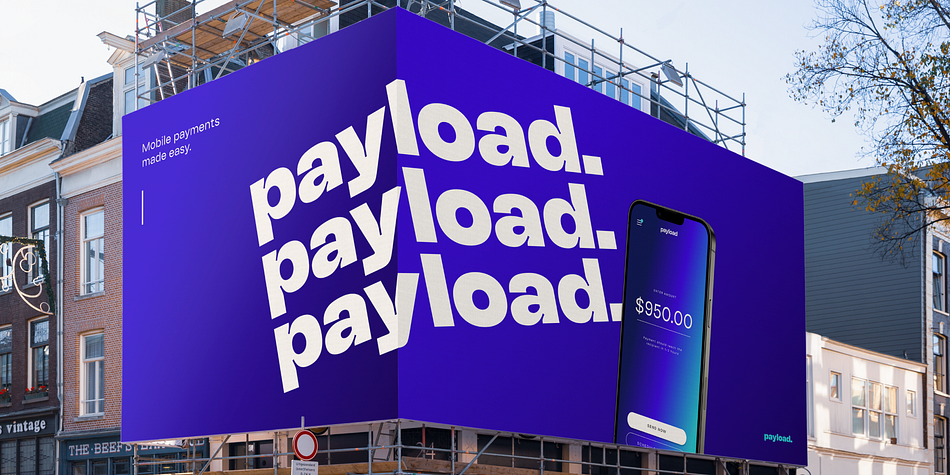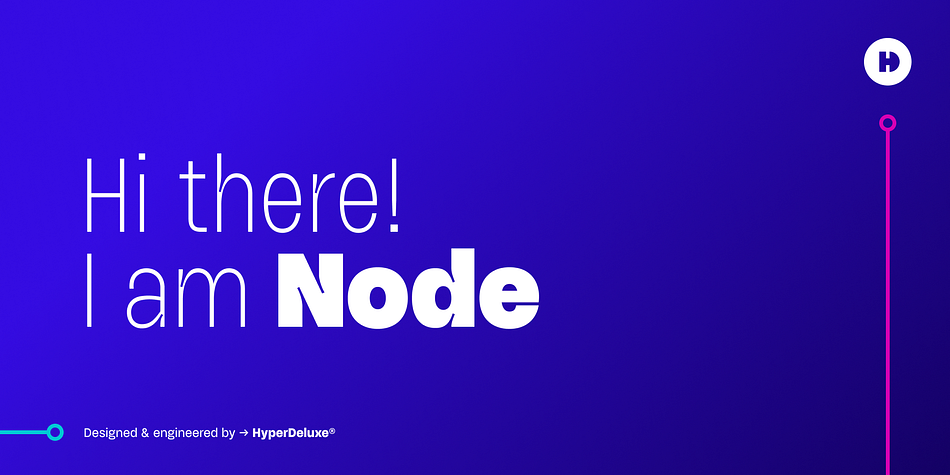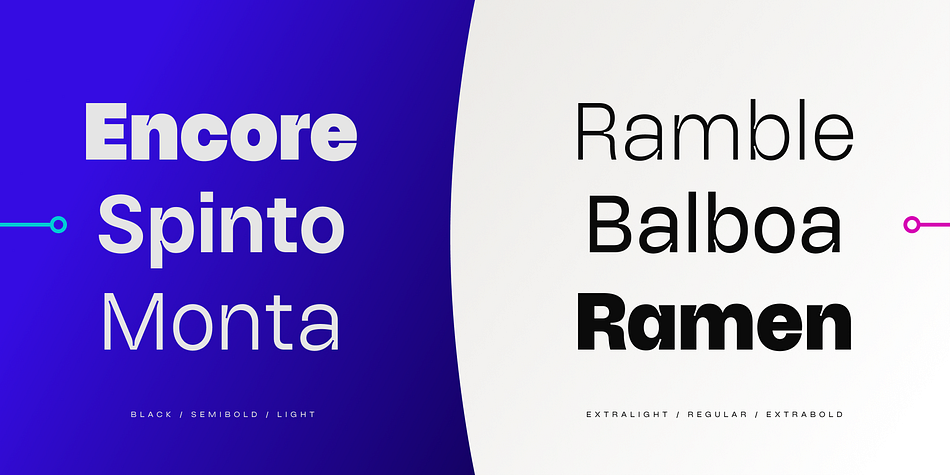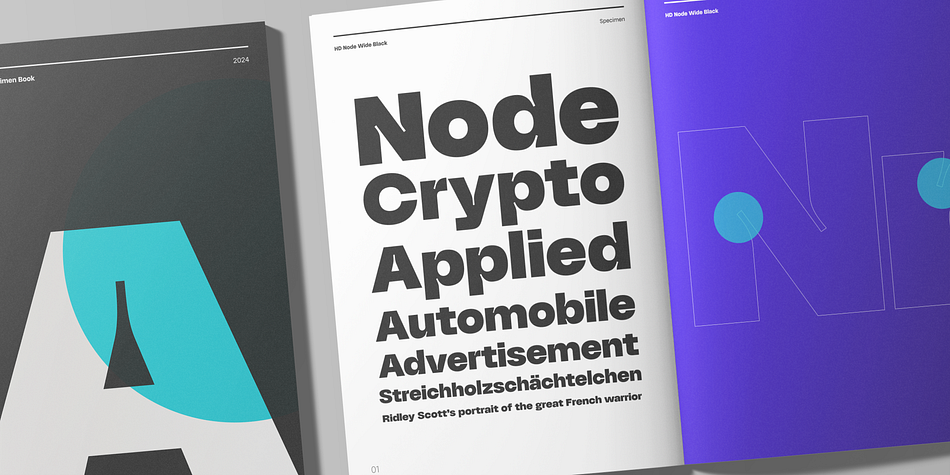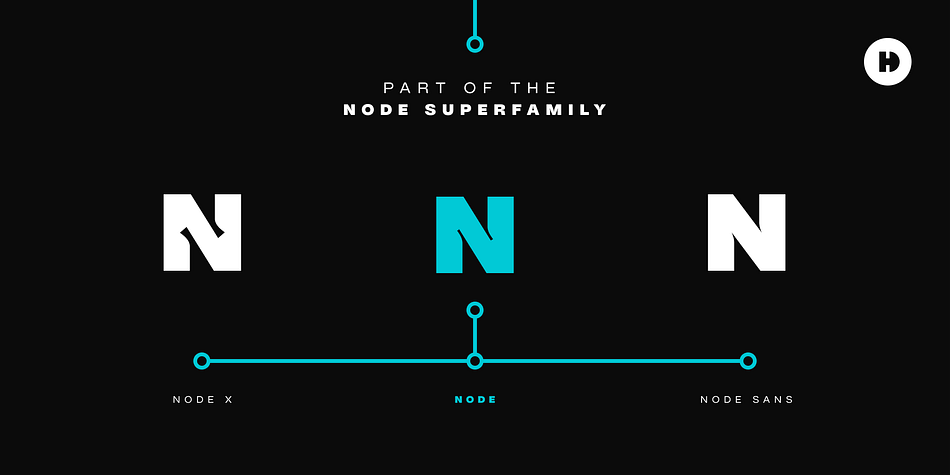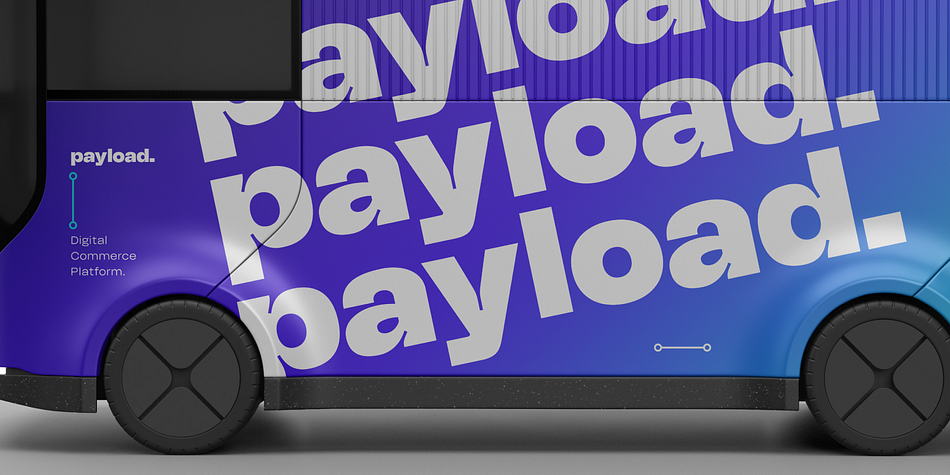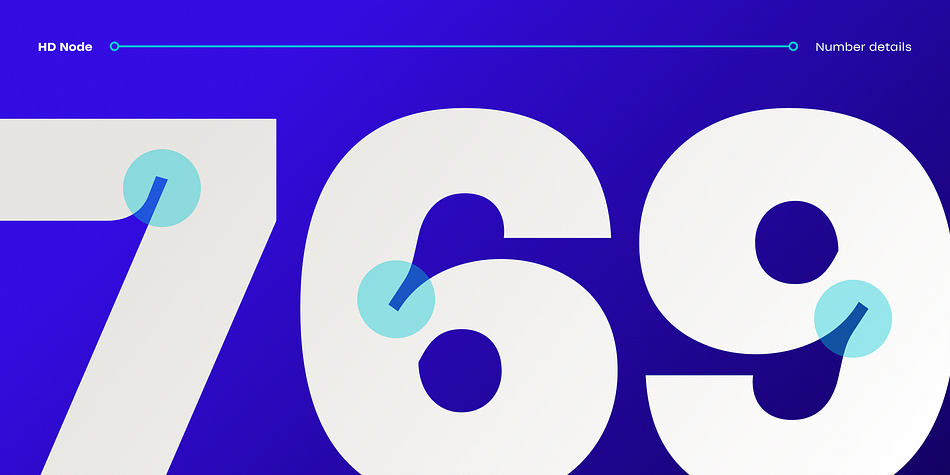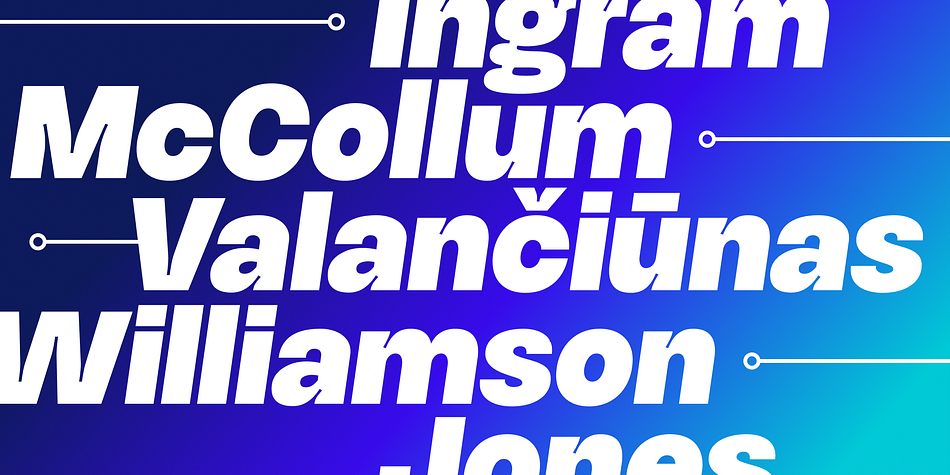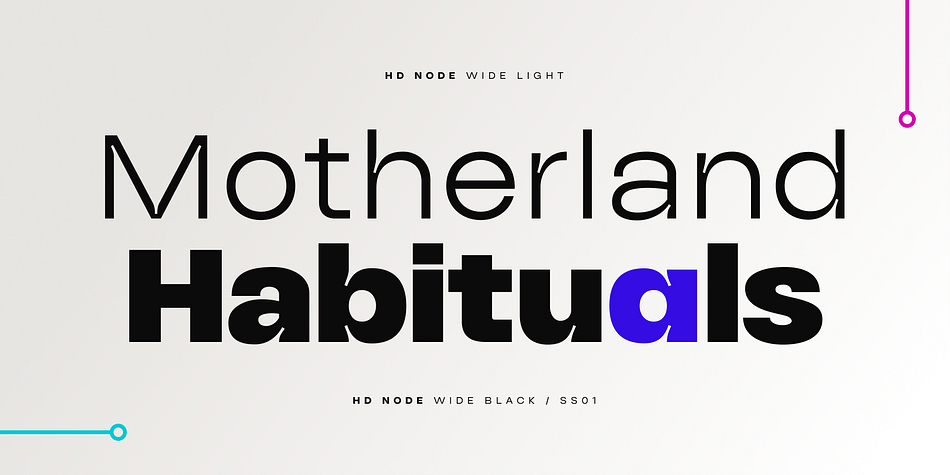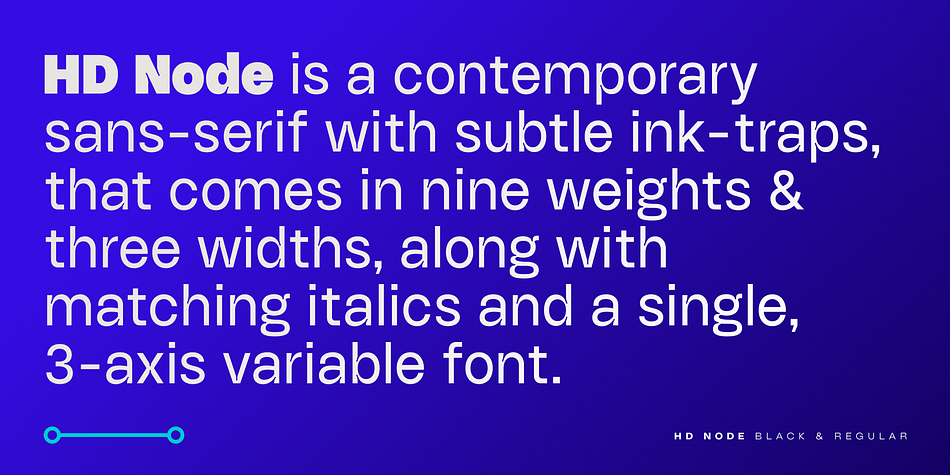
HD Node
Designed by Daniel Jones, HD Node is a sans serif font family. This typeface has fifty-five styles and was published by HyperDeluxe.
Welcome to the world of HD Node, part of the ever expanding Node Superfamily.
Comprising of 54 styles or a single 3-axis variable font, Node is the original member of the Node Superfamily. It comes in 3 widths and 9 weights along with matching italics, and features an ink trap that gives a unique and iconic feel to the typeface. The black weights are super impactful, giving an unapologetic in-your-face feel, while the thin weights are delicate and can collaborate well to create a harmony within your design project.
Primarily a display font to show off all of the subtle ink trap goodness, Node also has been engineered to work at smaller sizes making it perfect for offline uses such as logos and posters, or digital usage such as on websites or apps.
Node features all of the nice little touches you expect such as extensive Latin support, arrows, circled and squared numbers, as well as alternates for key characters.